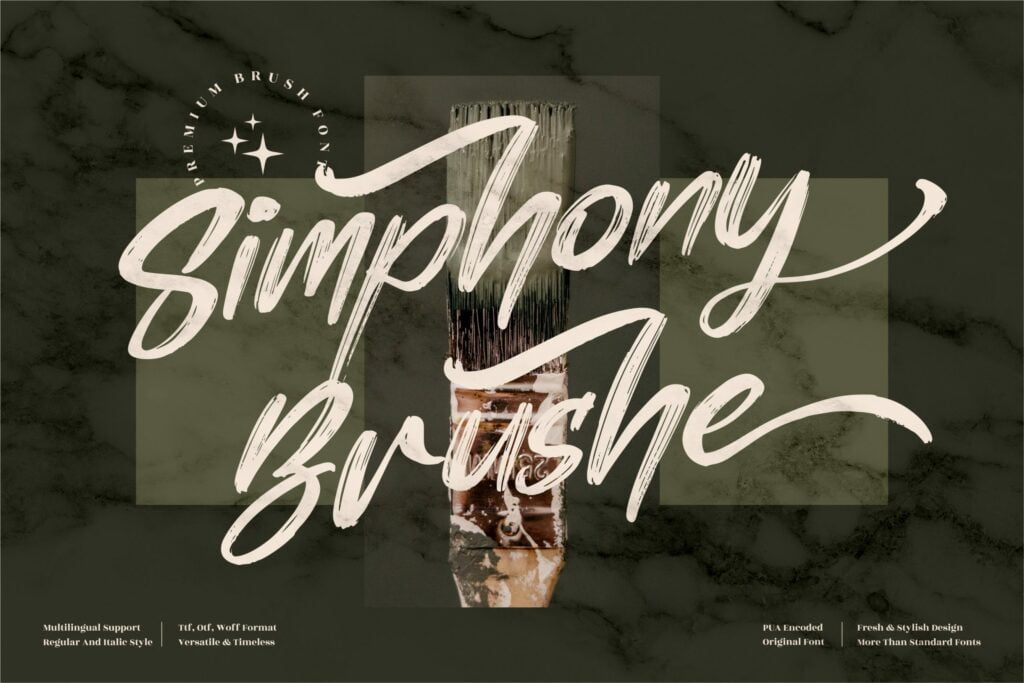
Simphony Brushe Font
Simphony Brushe is a chic and flowing script font that emanates sophistication and elegance. Its stylish alternates and ligatures make this font the perfect match for any project. This font is PUA encoded which means you can access all glyphs and swashes with ease!
Simphony Brushe Script Font